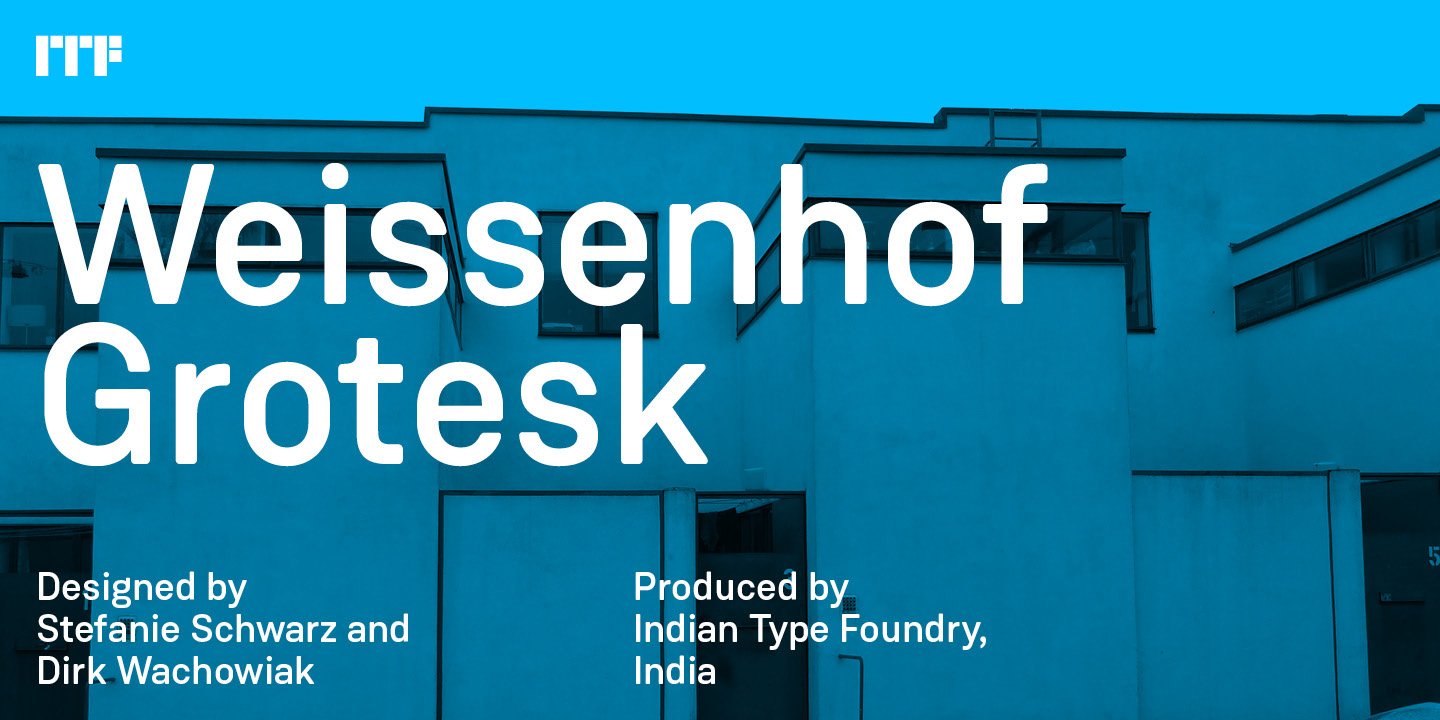
Weissenhof Grotesk Font is perfect for modernist architecture presentations, minimalist brand identities, industrial design portfolios, contemporary art museum catalogs, avant-garde poster designs, architectural firm logos, design studio branding, sleek corporate materials, and progressive cultural institutions that embrace Bauhaus-inspired aesthetics.
Weissenhof Grotesk Font brings excitement through its pure geometric construction and modernist design principles that capture the essence of functional beauty and architectural precision. This exceptional sans-serif typeface features clean, unadorned letterforms with perfect proportions that reflect the timeless ideals of modernist design movements. The font's systematic approach to typography and emphasis on clarity over decoration makes it perfect for projects that celebrate form following function and rational design thinking.
Weissenhof Grotesk Font family includes Thin, Light, Regular, Medium, Bold, and Black variations. Each style maintains the font's characteristic geometric purity while providing different weights and visual densities for comprehensive typographic systems in modernist and architectural design applications.
The architectural elegance of Weissenhof Grotesk Font Free Download lies in its ability to communicate sophisticated design thinking and progressive aesthetic values through typography. Whether you're working on cultural projects, architectural presentations, or avant-garde branding, this font delivers the perfect balance of functionality and visual impact.
Weissenhof Grotesk Font excels in both traditional print and digital environments, maintaining its crisp geometric clarity and modernist appeal across all applications. From exhibition catalogs to corporate identity systems, this versatile typeface ensures your message communicates innovation, precision, and contemporary design sophistication to design-conscious audiences.